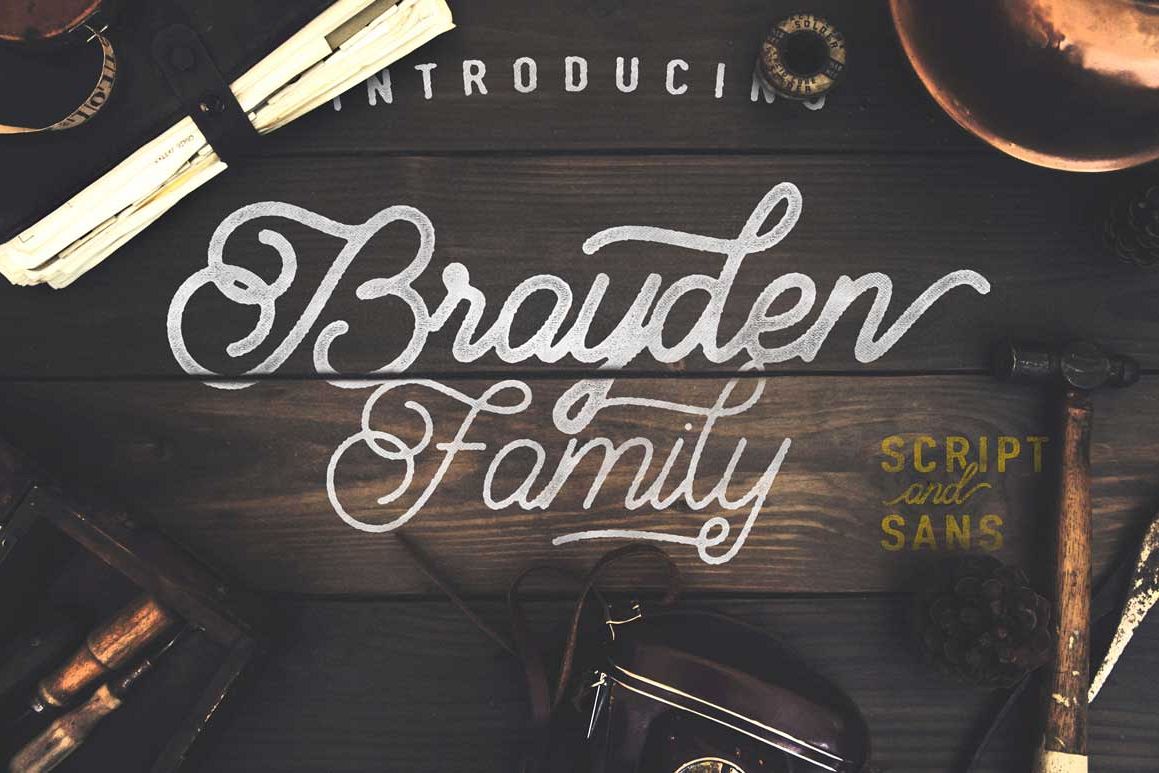
Brayden Family
Brayden Family is Family font that include 3 weight on script fonts + 1 Sans serif fonts to create the beautiful combination.nLike my product before Octavia Script , I include them with initial and terminal forms in the all weght of script font. Controlling with Contextual Swashes made it easier to change turning on and off the initial and terminal forms. This Fonts is Great for Logos, Lettering, Clothing Design, Poster, Label, Quotes, etc.Features
• Contextual Alternates
• Contextual Swashes
• And more alternates can be accessed via glyph panel.